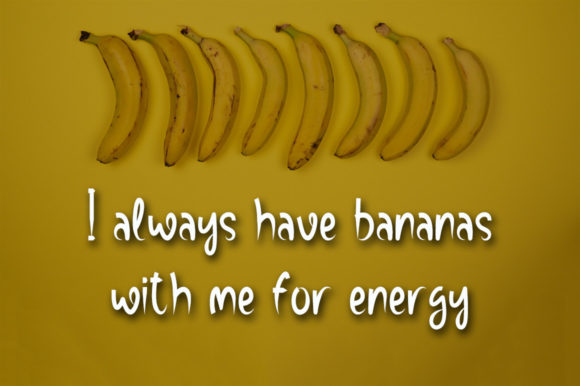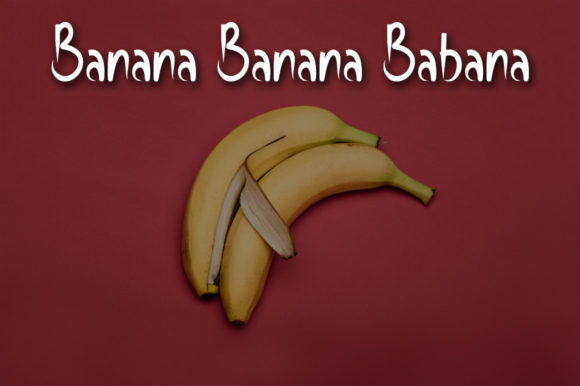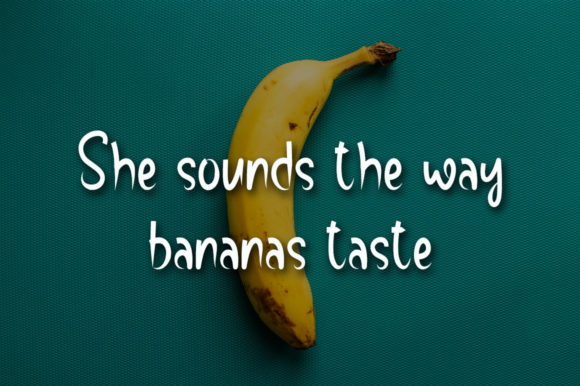
Introducing Big Banana Font: The Ultimate Choice for a Relaxed and Playful Touch
Are you tired of using the same old fonts for your creative projects? Look no further than Big Banana Font, a cute and playful handwritten font that’s perfect for adding a relaxed touch to your designs. With its informal style and casual vibe, Big Banana is sure to become a go-to choice for designers and crafters alike.
What Makes Big Banana Font So Special?
Big Banana Font is a unique and charming font that’s designed to bring a sense of playfulness and fun to your projects. Its handwritten style gives it a personal and informal feel, making it perfect for designs that require a more relaxed approach. Whether you’re working on a DIY craft project, a social media graphic, or a branding campaign, Big Banana Font is sure to add a touch of whimsy and personality to your work.
Key Features of Big Banana Font
• Cute and Playful: Big Banana Font is designed to be fun and playful, making it perfect for projects that require a lighthearted touch.
• Handwritten Style: The font’s handwritten style gives it a personal and informal feel that’s perfect for adding a touch of personality to your designs.
• Informal Style: Big Banana Font has an informal style that’s perfect for designs that require a relaxed approach.
• Casual Vibe: The font’s casual vibe makes it perfect for projects that require a laid-back and effortless feel.
Big Banana Font is perfect for designers and crafters who are looking for a unique and playful font to add to their collection. Whether you’re working on a branding campaign, a social media graphic, or a DIY craft project, Big Banana Font is sure to be a valuable addition to your toolkit.
Use Cases for Big Banana Font
Big Banana Font is versatile and can be used in a variety of projects, including:
• Branding: Use Big Banana Font to add a playful touch to your branding campaign, including logos, business cards, and letterheads.
• Social Media Graphics: Add a relaxed touch to your social media graphics, including Facebook posts, Instagram stories, and Twitter headers.
• DIY Crafts: Use Big Banana Font to add a personal touch to your DIY craft projects, including handmade cards, gift tags, and scrapbooking.
• Wedding Invitations: Add a playful touch to your wedding invitations, including save-the-date cards, wedding programs, and place cards.
Tips and Tricks for Using Big Banana Font
• Pair with Other Fonts: Pair Big Banana Font with other fonts to create a unique and interesting contrast.
• Experiment with Colors: Experiment with different colors to find the perfect combination for your project.
• Use in Combination with Images: Use Big Banana Font in combination with images to add a touch of personality to your designs.
Font Name Big Banana Font
Author morningtimestudio
Big Banana Font is a unique and playful font that’s perfect for designers and crafters who are looking for a relaxed and informal touch. With its cute and playful style, Big Banana Font is sure to become a go-to choice for a variety of projects. Whether you’re working on a branding campaign, a social media graphic, or a DIY craft project, Big Banana Font is sure to add a touch of whimsy and personality to your work.